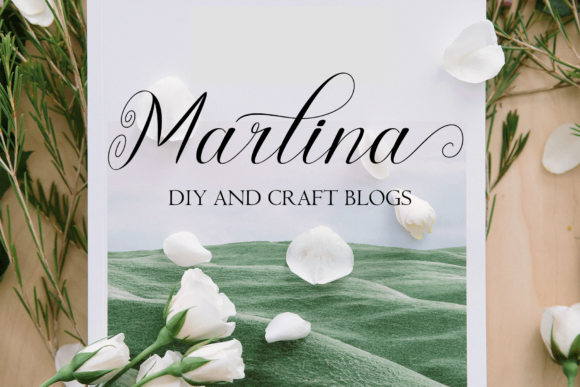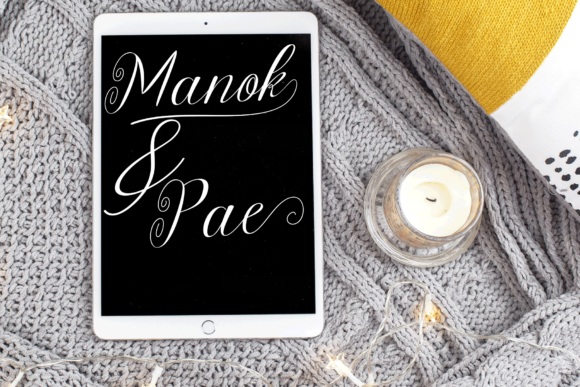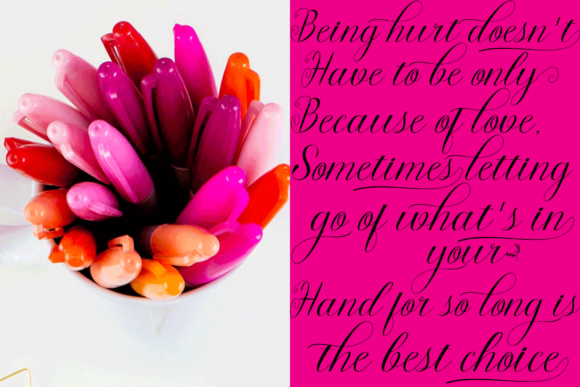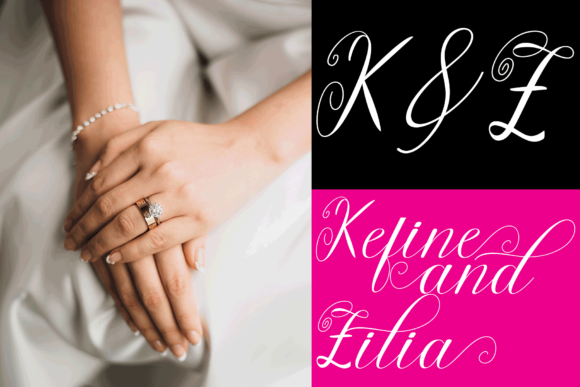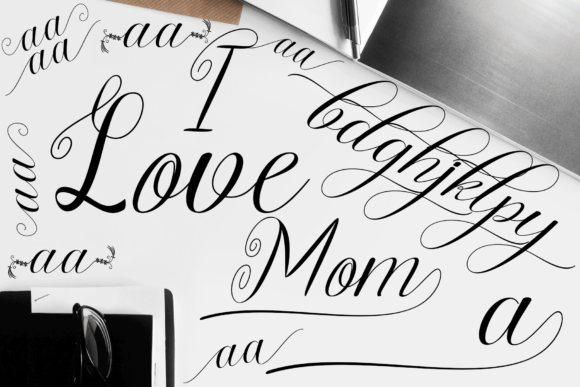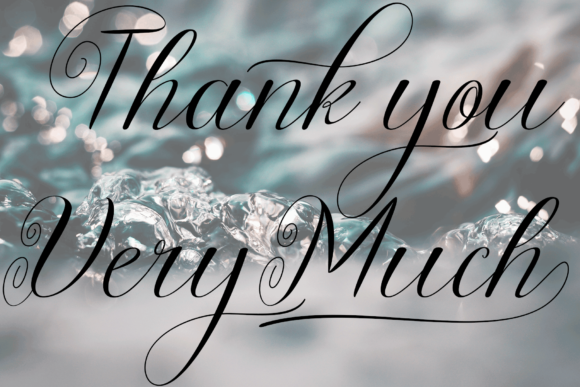
Introducing Amelanda Font: Elevate Your Designs with Elegance and Flair
Are you a designer or crafter looking for a font that exudes elegance and sophistication? Look no further than Amelanda Font. This beautiful, handwritten font is perfect for adding a touch of refinement to any design project. In this article, we’ll explore the features and benefits of Amelanda Font, and show you how it can elevate your designs to the next level.
A Font that Flows with Elegance
Amelanda Font is a true showstopper. Its elegant and flowing lines make it perfect for designs that require a touch of sophistication. Whether you’re creating wedding invitations, thank you cards, quotes, greeting cards, logos, or business cards, Amelanda Font is the perfect choice. Its varying baseline and smooth lines create a sense of movement and fluidity, making it a joy to read and behold.
Beautiful Glyphs and Alternates
One of the standout features of Amelanda Font is its gorgeous glyphs and stunning alternates. The font features a range of beautiful glyphs, including ligatures, swashes, and alternates, which allow you to add an extra touch of elegance to your designs. The glyphs are intricately designed, with delicate lines and curves that add to the font’s overall sense of sophistication.
Perfect for a Range of Design Projects
Amelanda Font is incredibly versatile, making it perfect for a range of design projects. Here are just a few ideas to get you started:
- Wedding invitations and stationery: Amelanda Font is a popular choice for wedding invitations, and for good reason. Its elegant lines and sophisticated feel make it perfect for formal wedding stationery.
- Thank you cards and greeting cards: Add a touch of elegance to your thank you cards and greeting cards with Amelanda Font.
- Quotes and posters: Amelanda Font is a great choice for quotes and posters, adding a touch of sophistication and elegance to your designs.
- Logos and branding: Use Amelanda Font to create a beautiful and elegant logo for your business or brand.
- Business cards: Stand out from the crowd with Amelanda Font on your business cards.
Why Choose Amelanda Font?
So why choose Amelanda Font for your design projects? Here are just a few reasons:
- Elegant and sophisticated: Amelanda Font is the perfect choice for designs that require a touch of elegance and sophistication.
- Versatile: Amelanda Font can be used for a range of design projects, from wedding invitations to logos and branding.
- Beautiful glyphs and alternates: The font features a range of beautiful glyphs and alternates, allowing you to add an extra touch of elegance to your designs.
- Easy to read: Despite its elegant lines, Amelanda Font is easy to read, making it perfect for designs that require a clear and concise message.
Tips for Using Amelanda Font
Here are a few tips for using Amelanda Font in your design projects:
- Use it sparingly: Amelanda Font is a statement font, so use it sparingly to add a touch of elegance to your designs.
- Pair it with a sans-serif font: Pair Amelanda Font with a sans-serif font to create a beautiful contrast and add visual interest to your designs.
- Experiment with glyphs and alternates: Don’t be afraid to experiment with the font’s glyphs and alternates to add an extra touch of elegance to your designs.
In conclusion, Amelanda Font is a beautiful and elegant font that is perfect for designers and crafters looking to add a touch of sophistication to their designs. With its flowing lines, gorgeous glyphs, and stunning alternates, Amelanda Font is the perfect choice for a range of design projects, from wedding invitations to logos and branding. Whether you’re a seasoned designer or just starting out, Amelanda Font is a great addition to your font library.